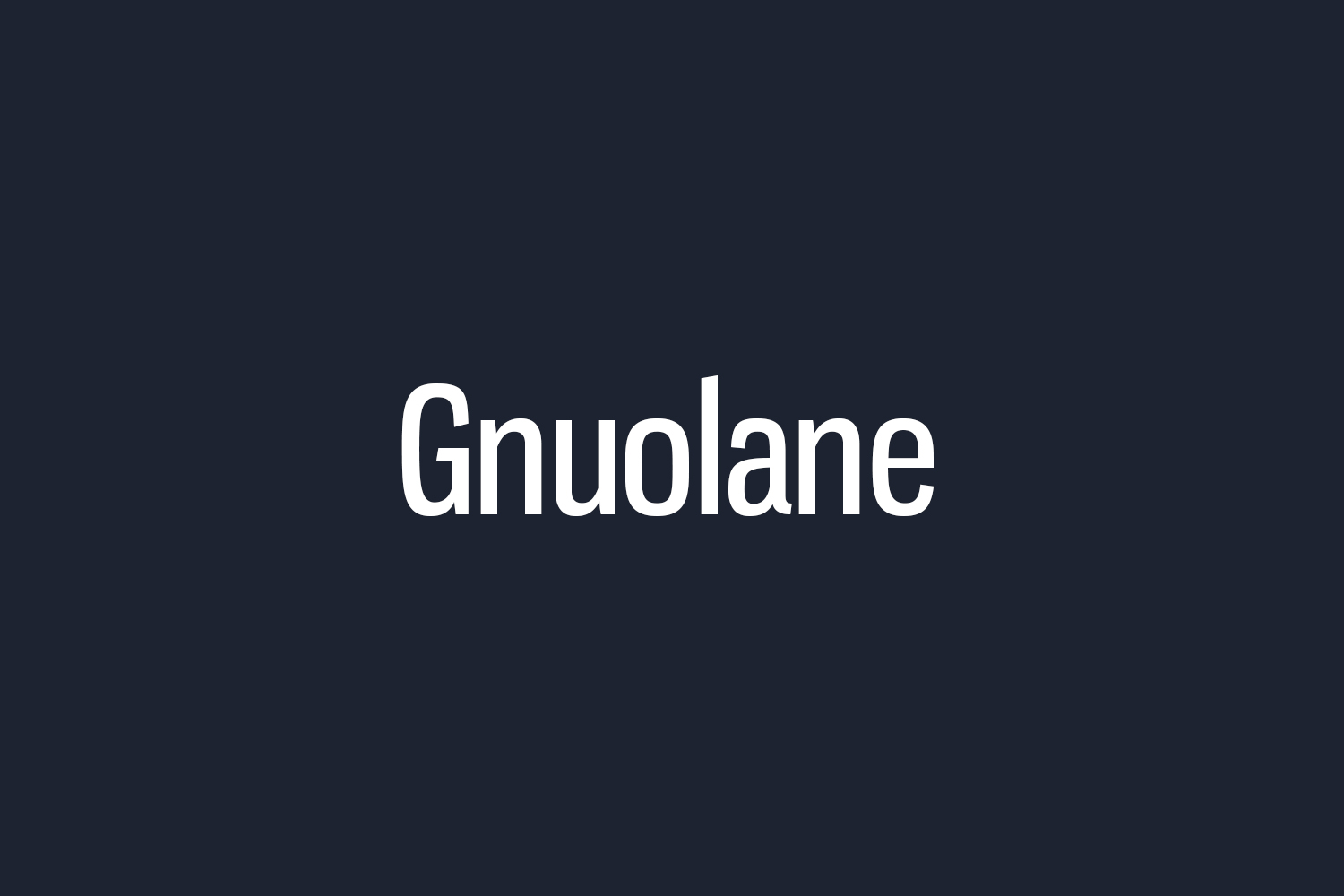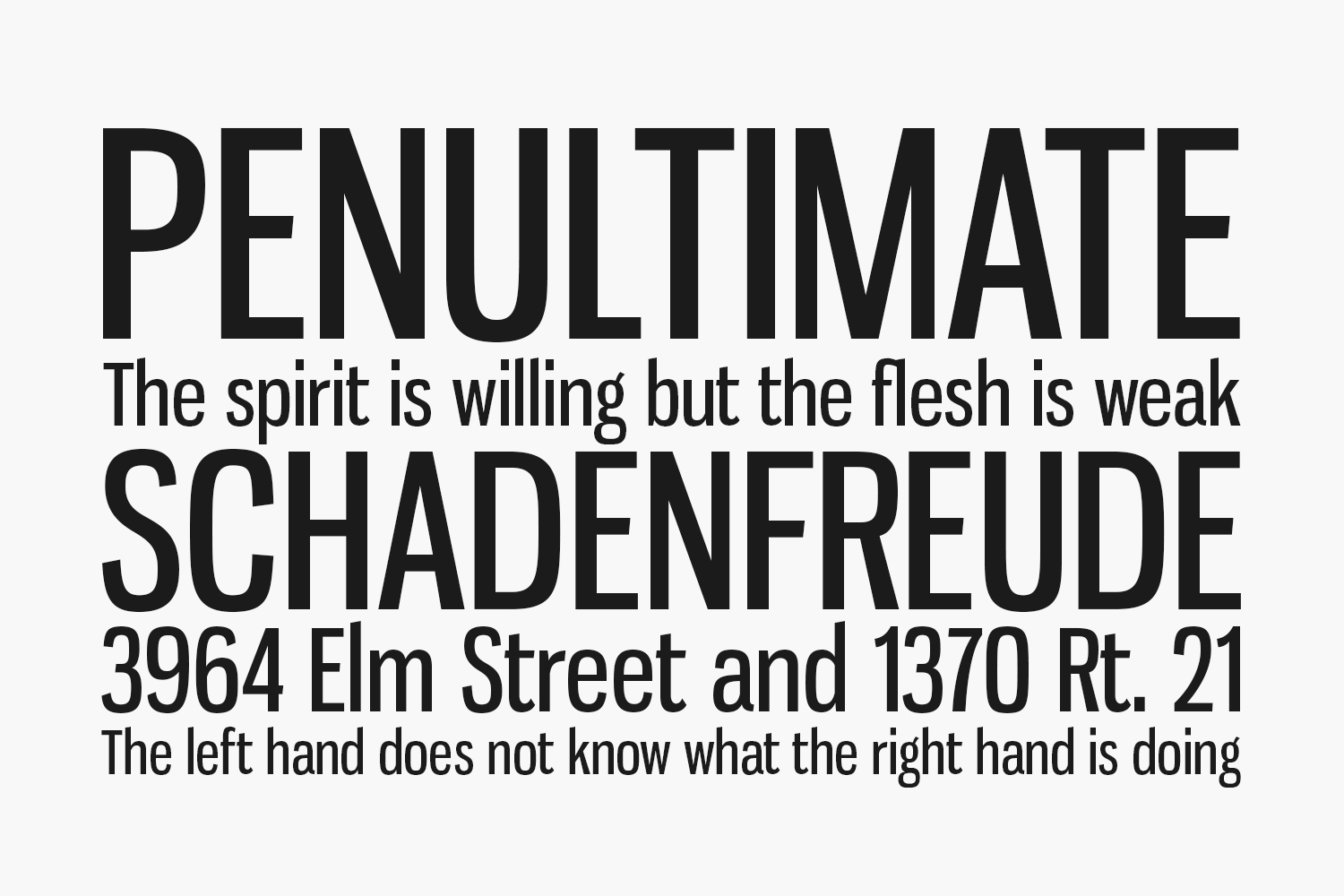
Gnuolane Free Font Family is a serious headline font in five weights. While it borrows from 19th Century grotesque models, it possesses a superelliptical sixties sneer. Gnuolane includes old-style numerals, ordinals, superiors, inferiors, f-ligatures and class-based kerning.